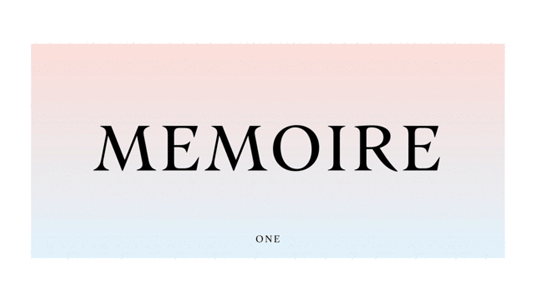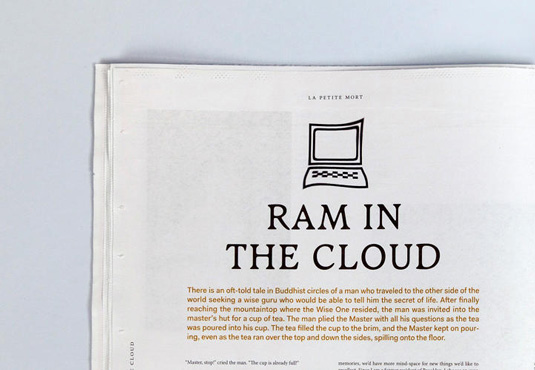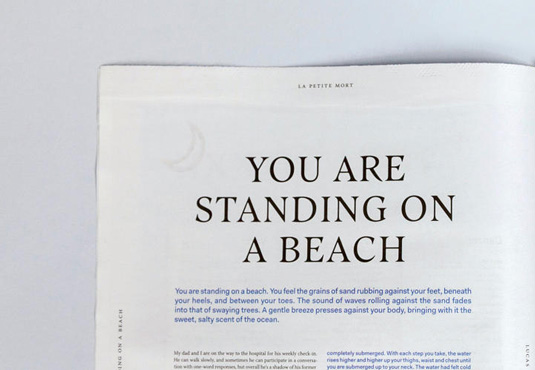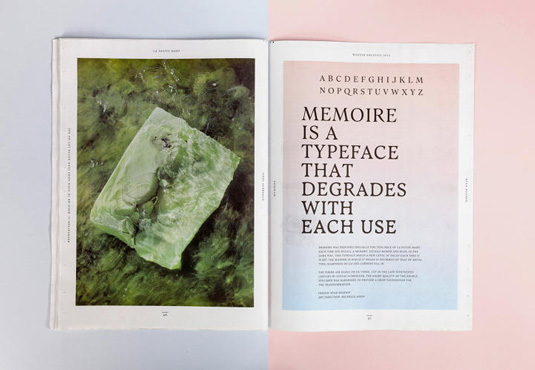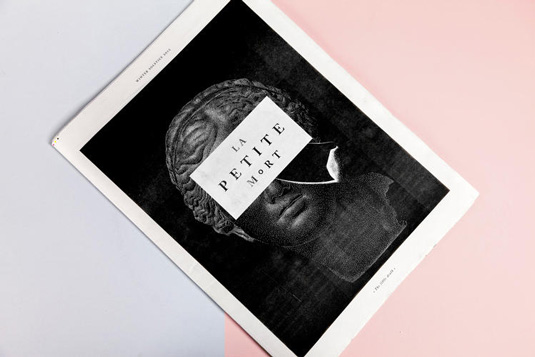
Font of the day: Memoire
Memoire from Sub Rosa
A digital tribute to moveable type, Memoire is a typeface that degrades with each use. Created by Michelle Ando and Ryan Bugden of New York-based design studio Sub Rosa, Memoire was designed for the fifth issue of the studio's biannual publication La Petite Mort. As readers move through the publication, the custom headline typeface transforms before their very eyes.
The Sub Rosa website states: 'Memory is an impermanent, malleable record of an event. With each recollection, details of a memory morph and blur depending on the context at hand. An analogue exists in typography. As metal type is used time and time again, the letterforms wear down and lose their sharpness. This connection between memory and type inspired Memoire'.
Ando and Bugden duo drew inspiration from letterforms of De Vinne, a typeface cut in the late nineteenth century by Gustav Schroeder, and the early days of type when the act of printing yielded a transformation not unlike the distortion of a memory. From this they created an experience for La Petite Mort's audience, developing a typeface that changed with each 'use'.